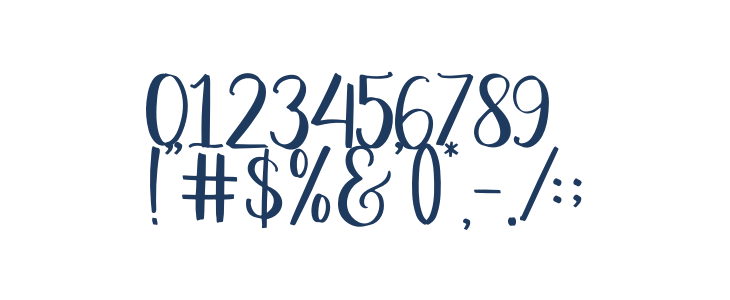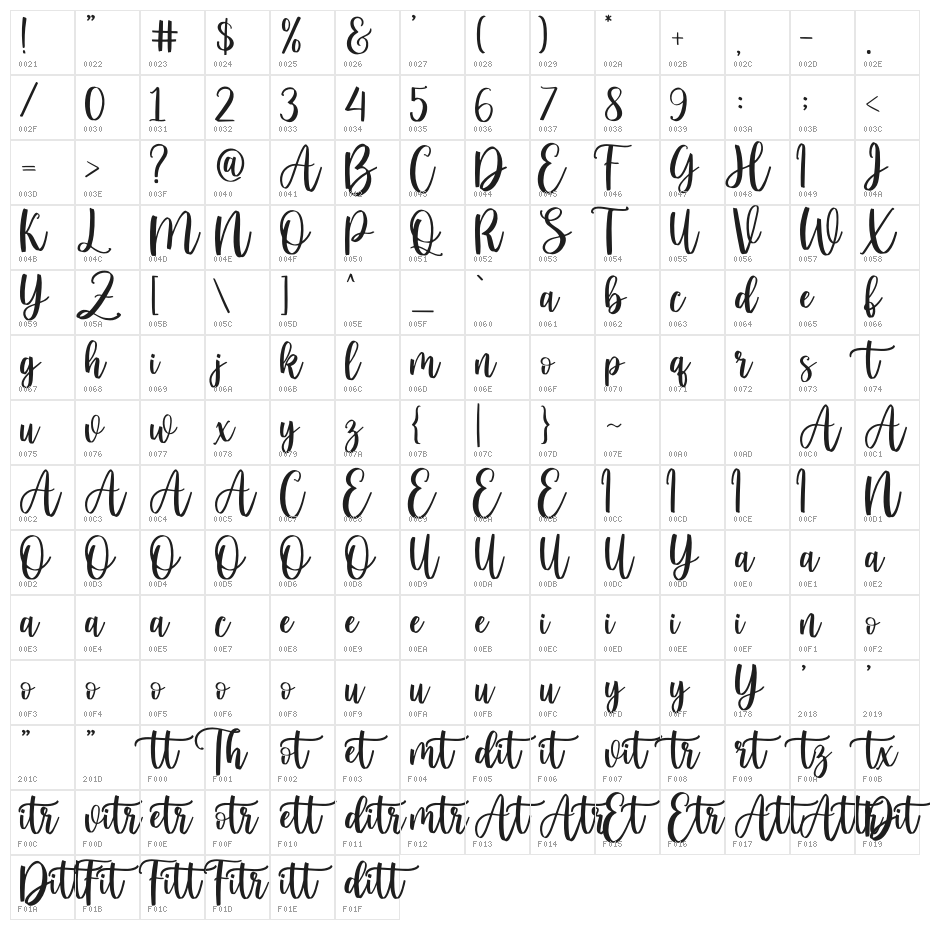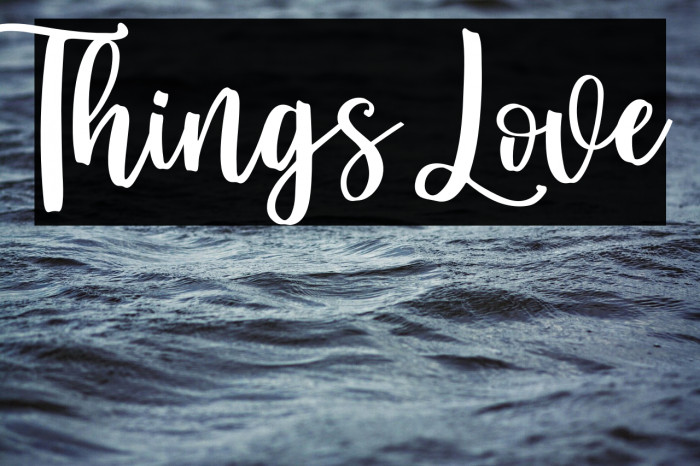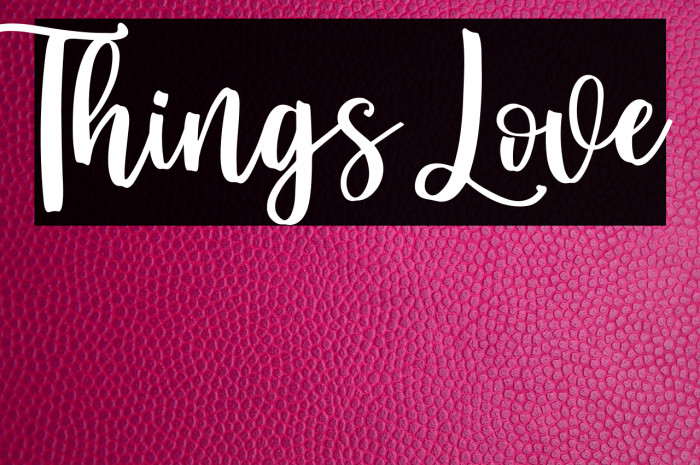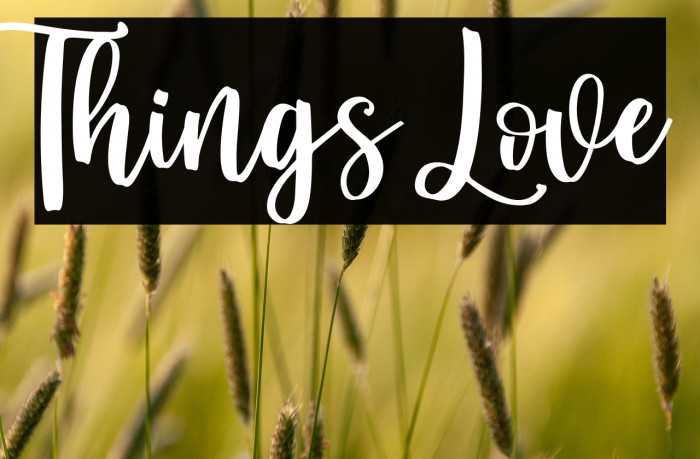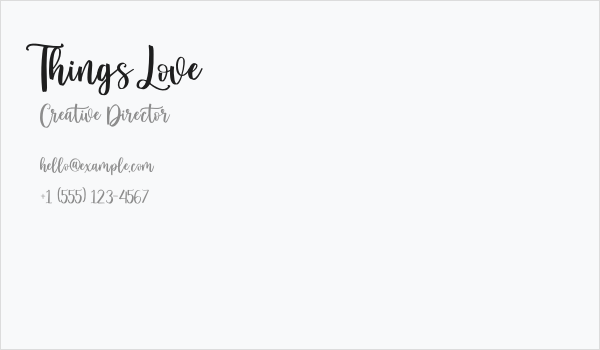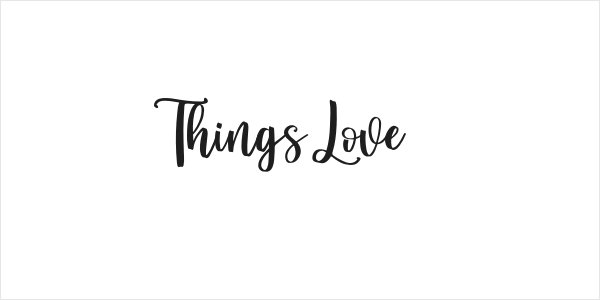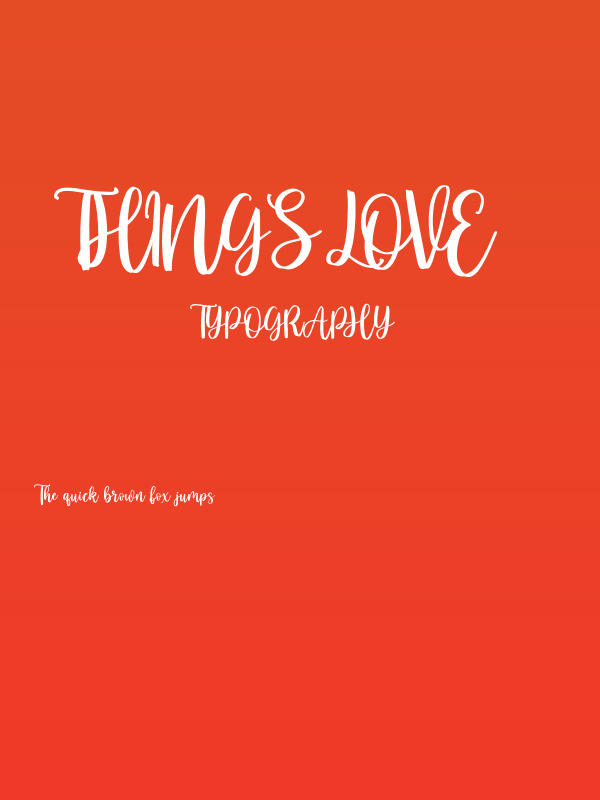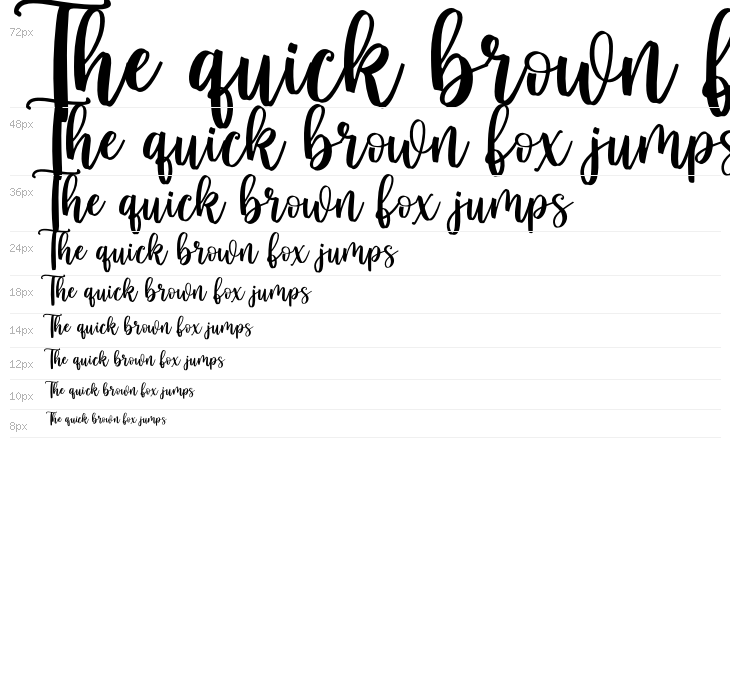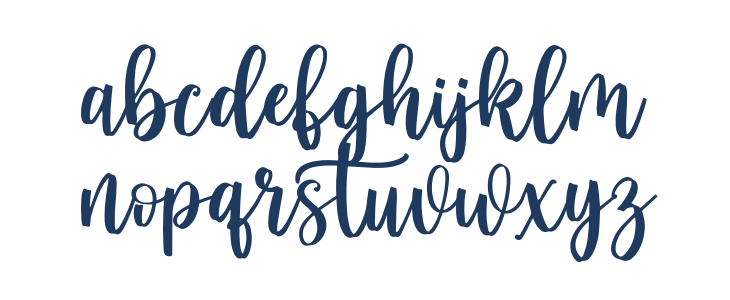
Things Love Font
Things Love Description
This font features a bold, flowing script style that exudes a sense of elegance and creativity. The characters are interconnected with smooth, sweeping curves, giving it a handwritten appearance. The uppercase letters are tall and prominent, while the lowercase letters maintain a consistent flow, enhancing readability. The numerals and special characters are designed to match the overall aesthetic, with a playful yet sophisticated look. This font is perfect for projects that require a personal touch, such as invitations, greeting cards, and branding materials.
| Proposed Projects | Ideal for wedding invitations, greeting cards, logos, and branding materials. |